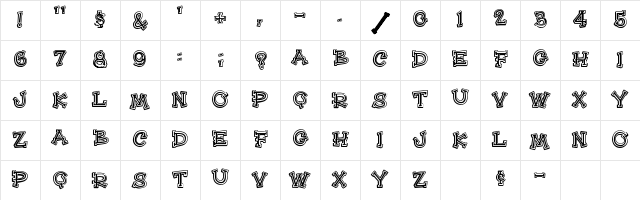
HeeHaw Regular
Design Context for HeeHaw Typeface
HeeHaw is a composed and adaptable typeface that performs quietly and consistently across a wide range of design contexts.